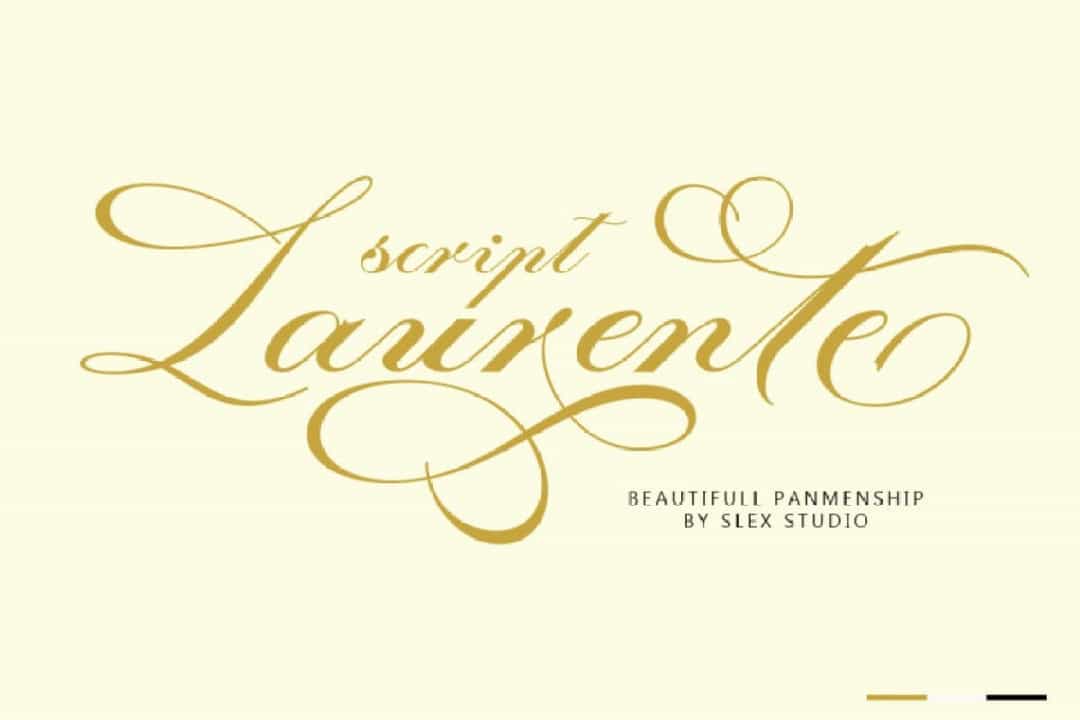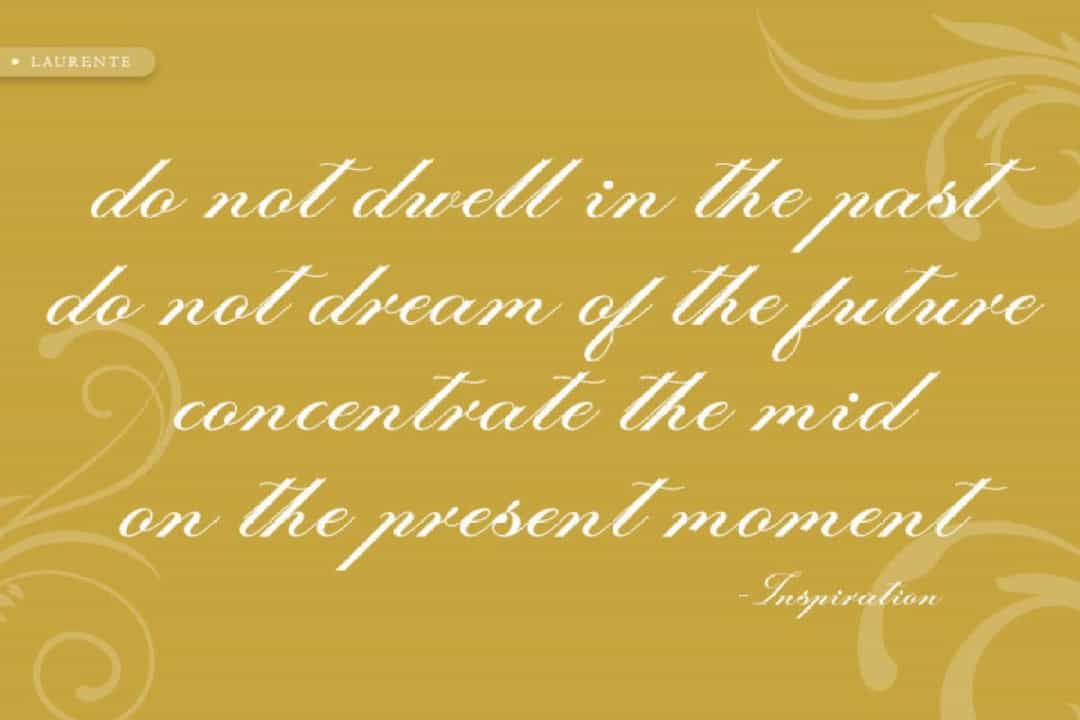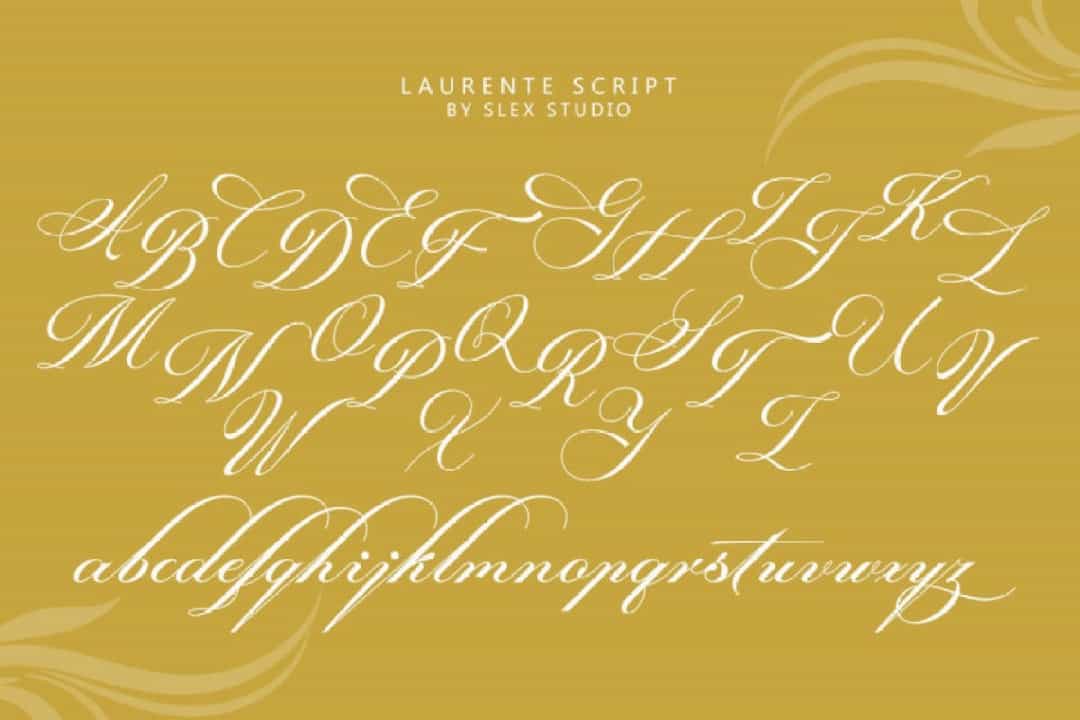
Laurente script font is a stylish calligraphic font featuring elegant curves, crisp lines, and exquisite strokes. Beautiful and sophisticated in its basic form of scripting, its array of Swash and Decorative alternatives (including local styles) allows users to add greater aesthetics and class to their designs.